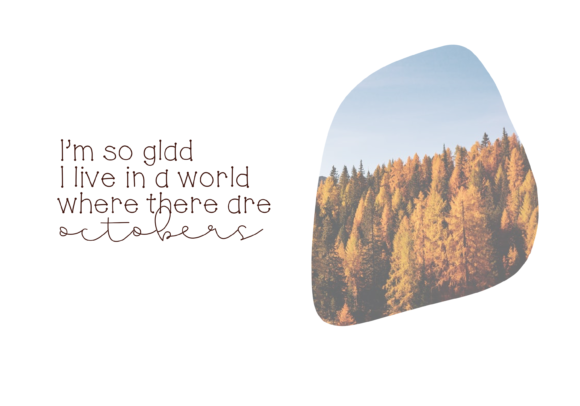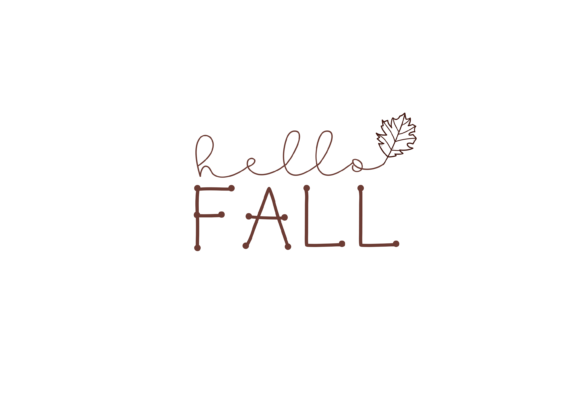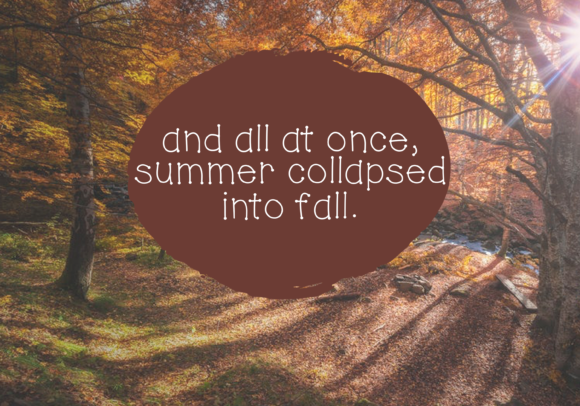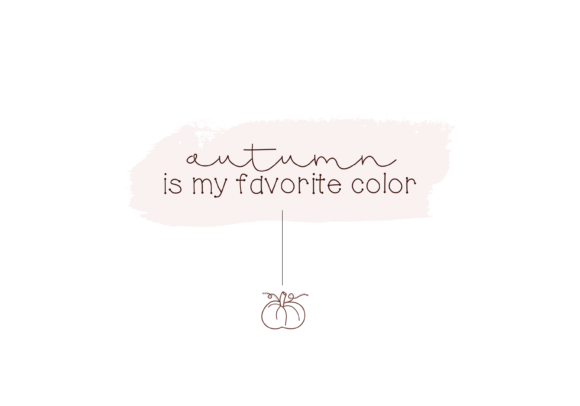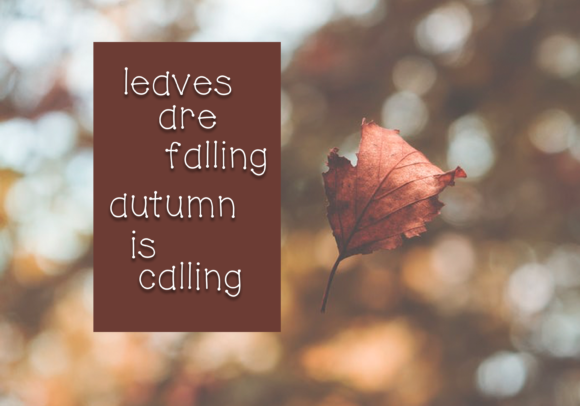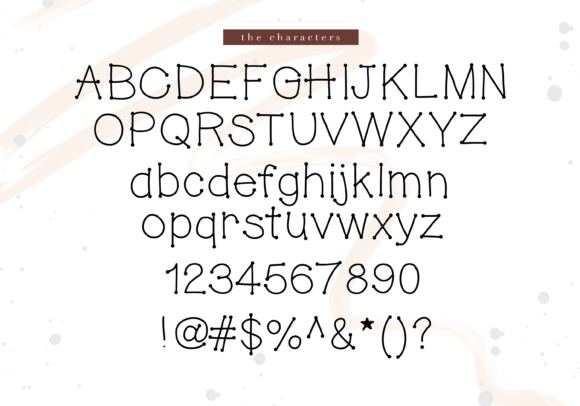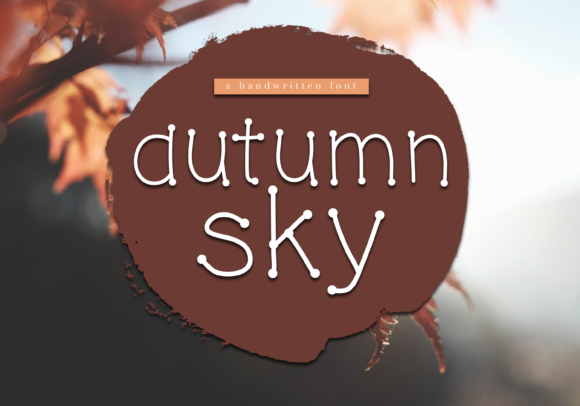
Introducing Autumn Sky Font: Add a Touch of Whimsy to Your Designs
Are you tired of using the same old fonts in your design projects? Look no further than Autumn Sky Font, a fun and playful display font that’s sure to add a touch of personality to any design. With its unique and eye-catching style, Autumn Sky Font is perfect for designers and crafters looking to make their projects stand out from the crowd.
A Font that’s Full of Personality
Autumn Sky Font is a fun and vibrant font that’s perfect for adding a touch of whimsy to your designs. Its playful and carefree style makes it ideal for use in a variety of projects, from fall-themed crafts and decorations to social media graphics and marketing materials. Whether you’re designing for a client or working on a personal project, Autumn Sky Font is sure to bring a smile to your face and add a touch of personality to your work.
Stand Out from the Crowd
As a designer or crafter, you know how important it is to make your projects stand out from the crowd. With Autumn Sky Font, you can add a unique and eye-catching touch to your designs that will set them apart from the rest. Whether you’re creating a logo, a poster, or a social media graphic, Autumn Sky Font is sure to grab attention and make your project memorable.
Perfect for Fall-Themed Projects
As the name suggests, Autumn Sky Font is perfect for fall-themed projects. Its warm and cozy style evokes the feeling of crisp autumn air and changing leaves, making it ideal for use in designs for fall festivals, harvest-themed crafts, and Thanksgiving decorations. But don’t limit yourself to just fall-themed projects – Autumn Sky Font can add a touch of whimsy and personality to any design, regardless of the season or theme.
Easy to Use and Versatile
What You Can Create with Autumn Sky Font
The possibilities are endless when it comes to creating with Autumn Sky Font. Here are just a few ideas to get you started:
- Fall-themed crafts and decorations, such as leaf rubbings, acorn caps, and pumpkin decorations
- Social media graphics and marketing materials, such as flyers, brochures, and business cards
- Logos and branding materials, such as letterheads, invoices, and packaging
- Party decorations and invitations, such as birthday party decorations, wedding invitations, and baby shower decorations
- DIY projects, such as scrapbooking, card making, and mixed media art
Why Choose Autumn Sky Font?
So why choose Autumn Sky Font for your next design project? Here are just a few reasons:
- Unique and eye-catching style that’s sure to grab attention
- Playful and carefree personality that’s perfect for adding a touch of whimsy to your designs
- Perfect for fall-themed projects, but can be used in a variety of designs and applications
- High-quality font that’s designed to look great in a variety of sizes and resolutions
Autumn Sky Font is a fun and playful display font that’s perfect for designers and crafters looking to add a touch of personality to their projects. With its unique and eye-catching style, easy-to-use format, and versatile applications, Autumn Sky Font is sure to become a go-to font in your design arsenal. So why wait? Download Autumn Sky Font today and start adding a touch of whimsy to your designs!